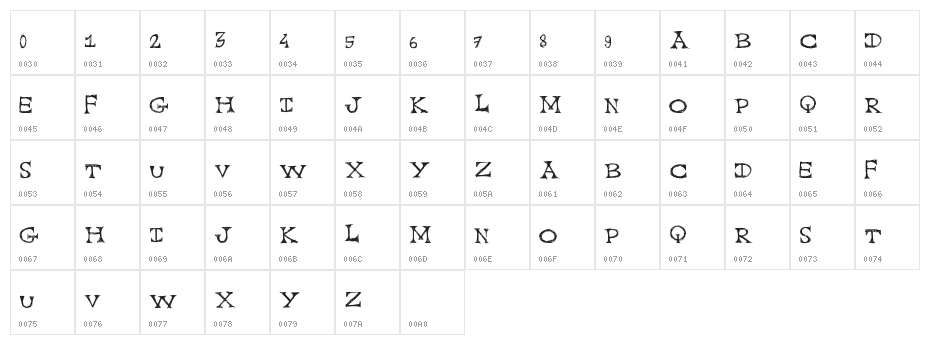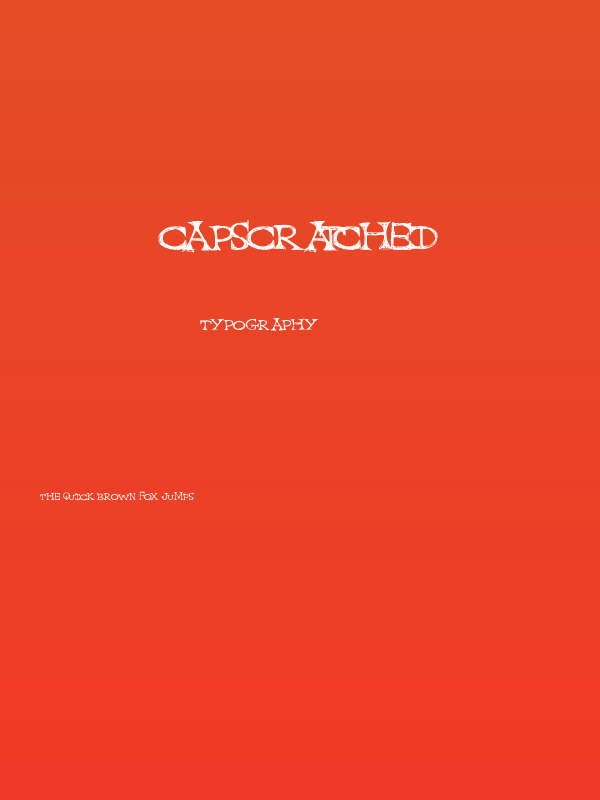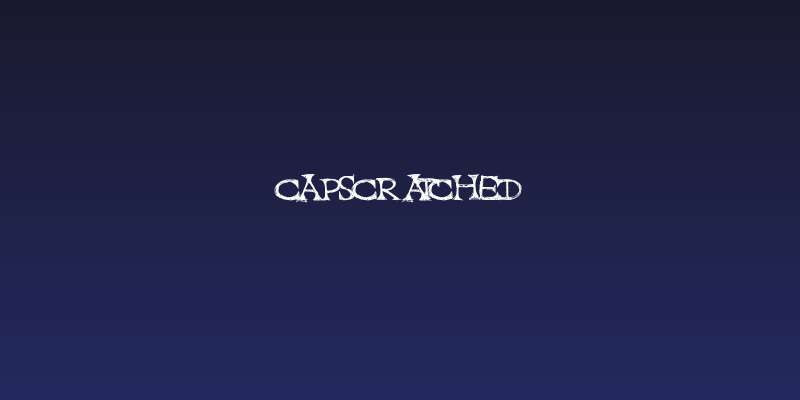
CapScratched Font
CapScratched Description
This font features a distinctive, edgy style with a scratched and distressed appearance. The characters are bold and have a rough texture, giving them a rugged and rebellious feel. The uppercase and lowercase letters maintain a consistent design, with sharp edges and uneven lines that create a sense of movement and energy. The numbers and special characters follow the same aesthetic, ensuring a cohesive look across all text elements. This font is ideal for projects that require a bold statement or a grunge-inspired theme.
| Proposed Projects | Ideal for album covers, posters, streetwear branding, and any project needing a grunge or rebellious vibe. |